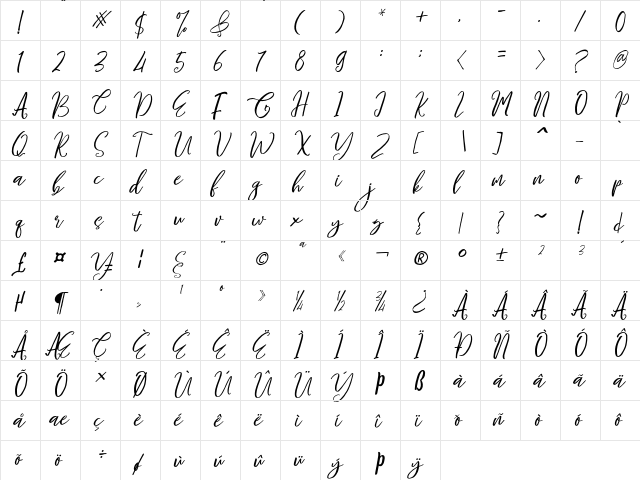
Frelline Script Regular
Design Context for Frelline Script Typeface
Frelline Script brings a calligraphic fluidity to the page — its connecting strokes and expressive curves give it an unmistakably human quality.
Font Pairing: Combine Frelline Script with a simple geometric sans for maximum contrast — the tension between flowing curves and clean structure is a classic typographic pairing.
Pro Tip: Use Frelline Script for short runs of text — names, titles, or taglines. Extended body copy in script faces tires the eye quickly.